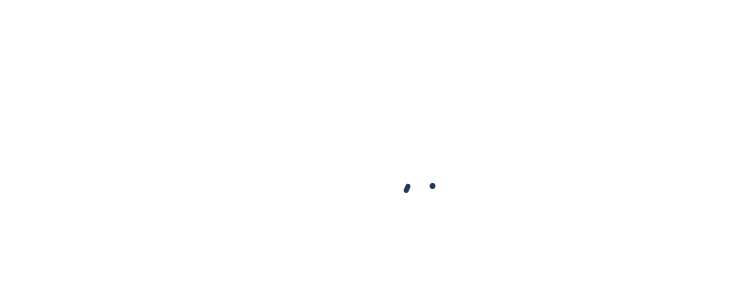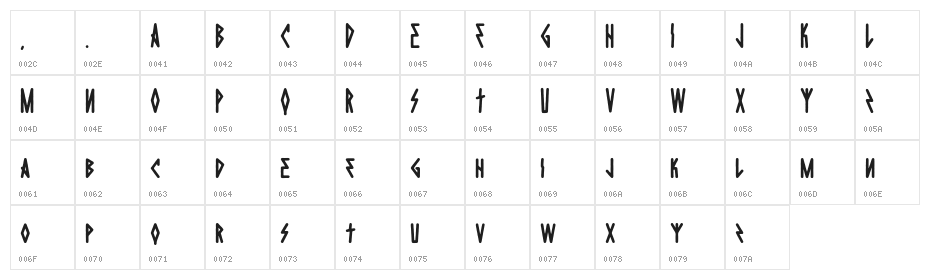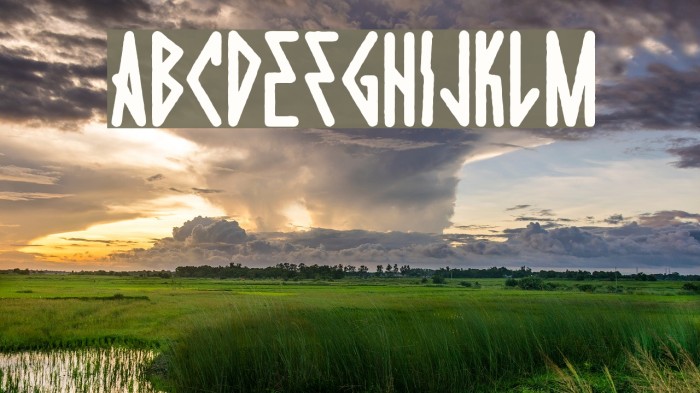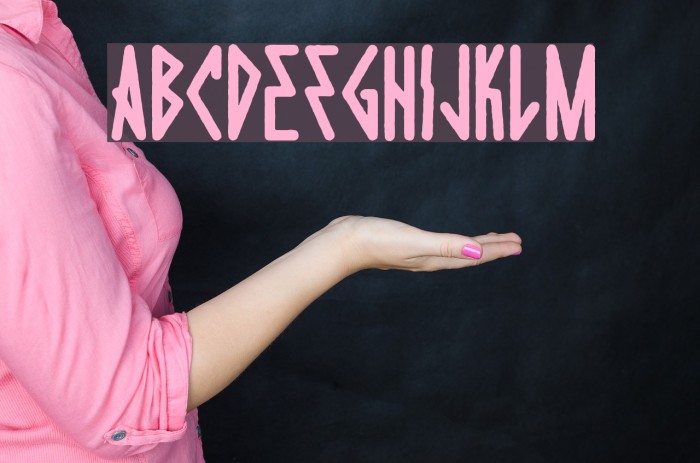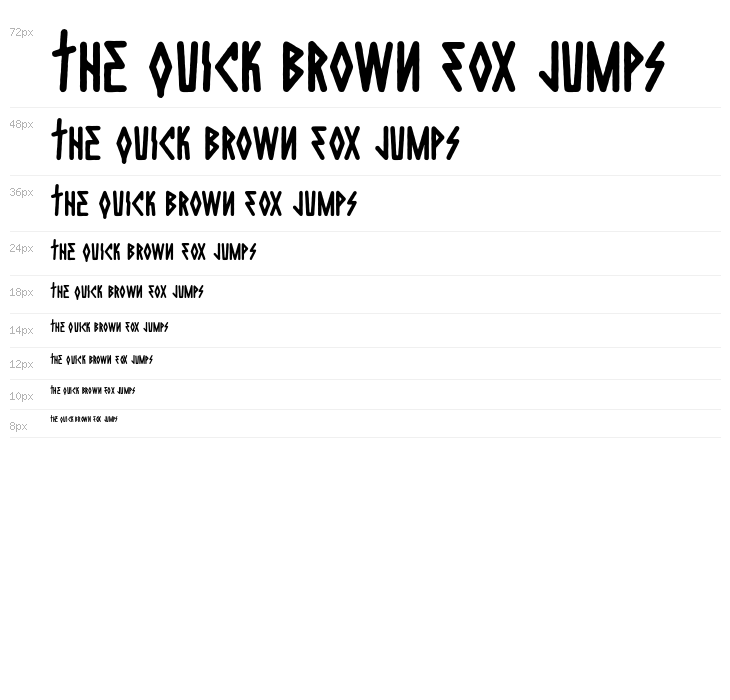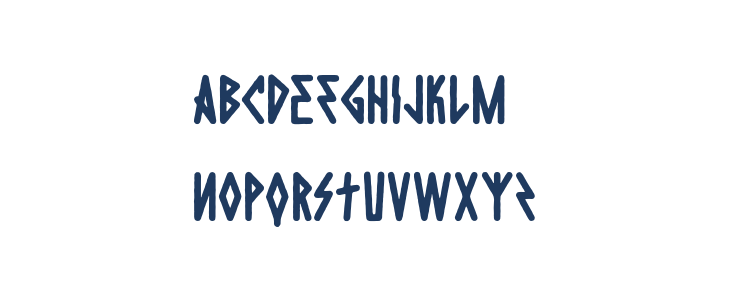
DieHardRegular Font
DieHardRegular Description
This font features a bold and angular design, characterized by sharp edges and a geometric structure. The uppercase letters exhibit a strong presence with their thick strokes and unique shapes, creating a sense of dynamism and energy. The lowercase letters maintain a consistent style, complementing the uppercase with similar angular forms. The numbers and special characters are designed to match the overall aesthetic, ensuring a cohesive look. This font is ideal for projects that require a bold and impactful visual statement.
| Proposed Projects | Ideal for posters, logos, video game titles, and branding materials that require a bold and dynamic appearance. |